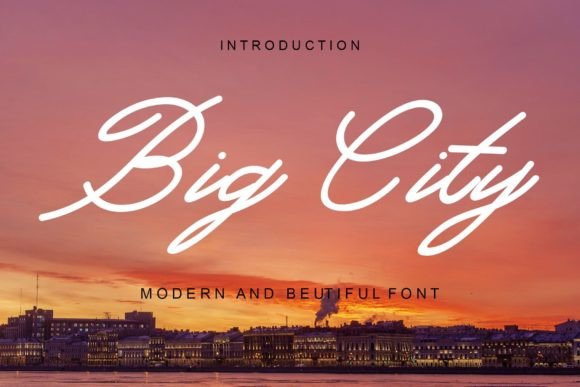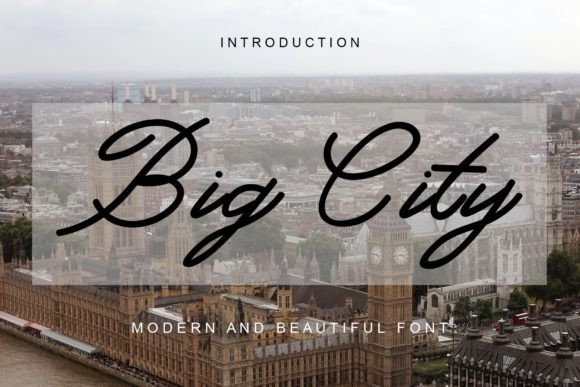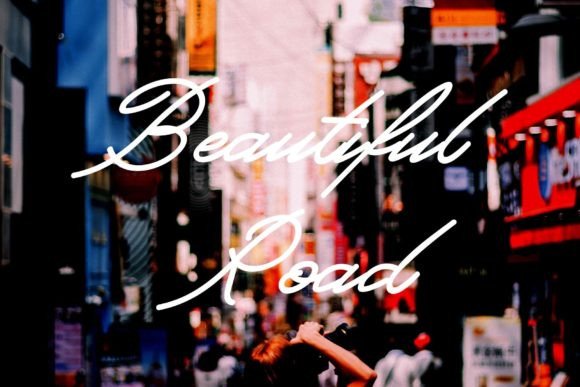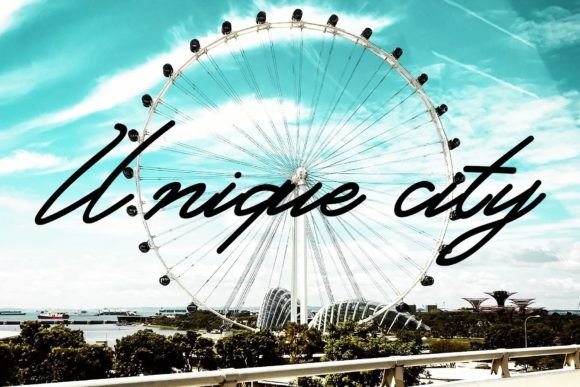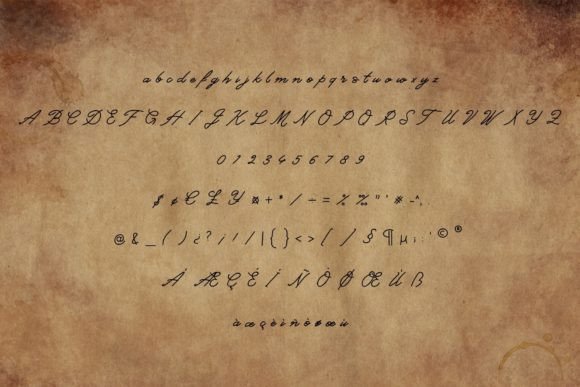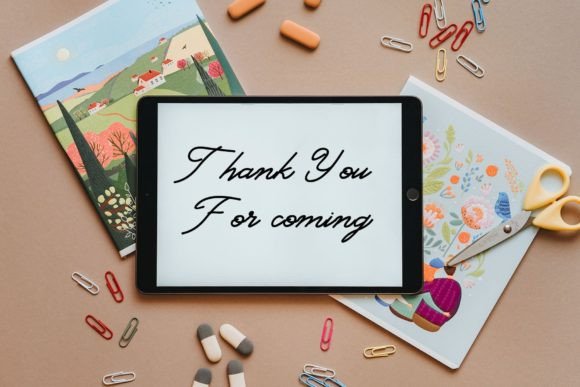
Big City Font
About Big City Font
Big City is an enchanting handwritten font that captivates with its unique charm. This versatile font spans a wide spectrum of applications, making it suitable for everything from greeting cards to headlines. With its distinct style, Big City is guaranteed to infuse a romantic feel into your next project, adding a touch of warmth and personality.
The enchanting qualities of Big City make it an ideal choice for designs that require a romantic and whimsical touch. Its handwritten nature adds an authentic and personal feel, creating a connection with the audience.
For greeting cards, Big City ensures that your messages are conveyed with a romantic and heartfelt tone. Whether used for special occasions, love notes, or any expression of emotion, this font enhances the overall sentiment with its charming style.
In headlines and titles, Big City stands out with its unique and captivating appearance. It brings a touch of romance to announcements, articles, or any design element where emphasis and style are key.
The versatility of Big City allows it to adapt seamlessly to a variety of design contexts. Its application can range from more formal projects like headlines to creative and expressive endeavors such as greeting cards.
In conclusion, Big City is more than just a font; it’s a creative tool crafted to bring enchantment and romance to your designs. Whether used for greeting cards, headlines, or any other project, this handwritten font ensures that your creations exude a romantic feel that resonates with your audience.